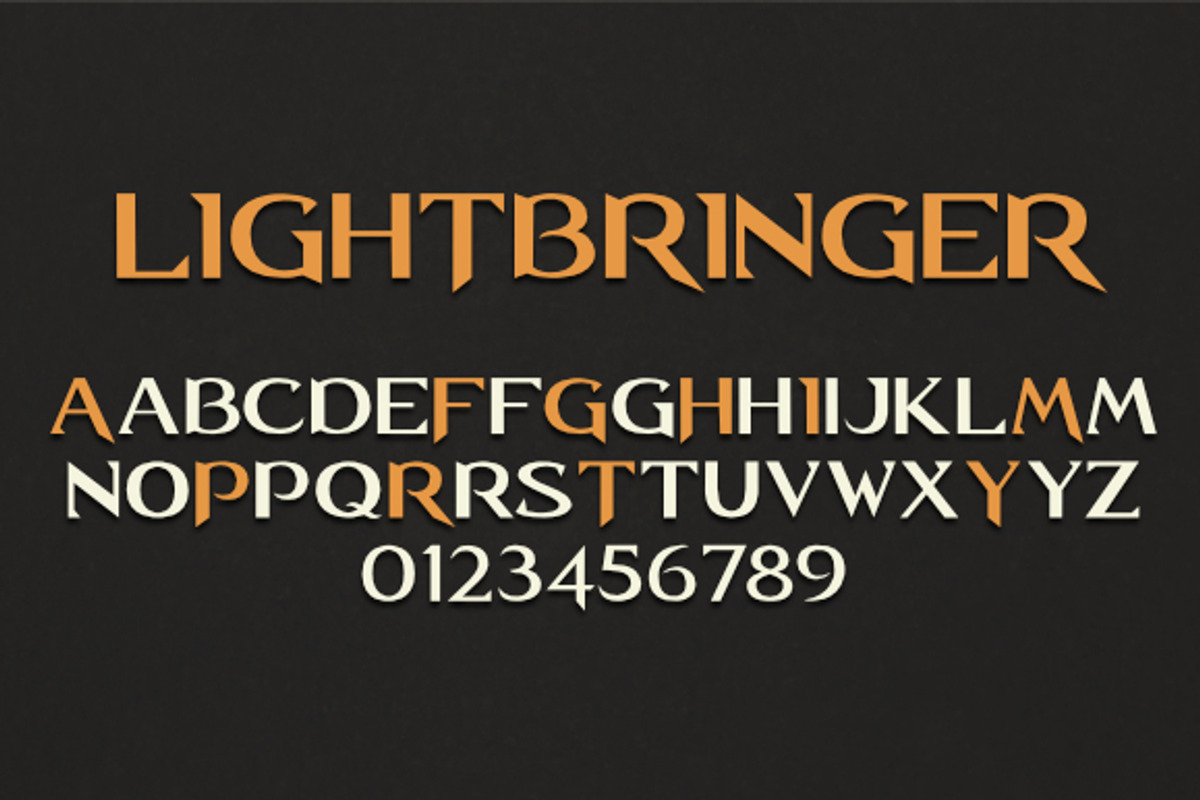
Lightbringer font
Lightbringer font by Subversive Type is a font selected for branding, posters, packaging, typography.
- A modern all caps font with alternative characters.
Why Lightbringer font is worth a look
Lightbringer font by Subversive Type fits naturally into Branding, posters, packaging, typography.